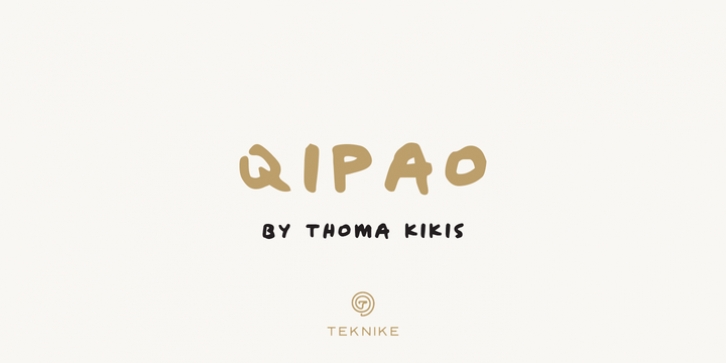
Publisher: TEKNIKE
Qipao is a display monospace handwriting font. The typeface is a distinct hand drawn font using a felt marker. The Qipao name is derived from the traditional Chinese dress that Manchu women wore in China in the 17th century and became known as the qipao (旗袍), meaning "banner gown". Qipao is great for display work, invitations, writing, architecture, posters, logos and headings.